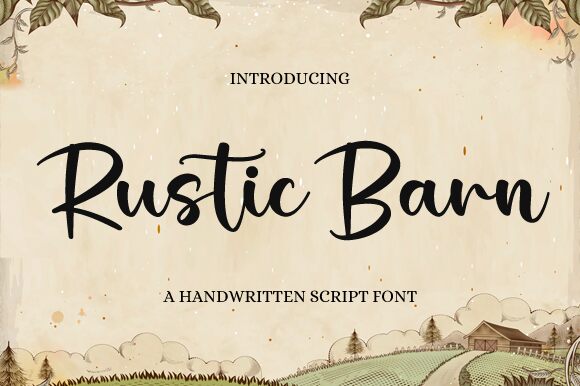
Rustic Barn
Rustic Barn font is a free handwritten font designed by Nirmala Creative with an elegant, flowing style that is warm and inviting. The typeface incorporates a calligraphic influence while maintaining a handcrafted feel for each character. It effortlessly connects characters when typed for an authentic end look and aura. With this font, your messages won’t simply be delivered but also appreciated.
A truly versatile tool, Rustic Barn can be used for gift cards and notes, photo albums, book titles, posters within restaurants or farm shops and markets, branding designs such as logos and package designs of cosmetics products or organic foods/products.